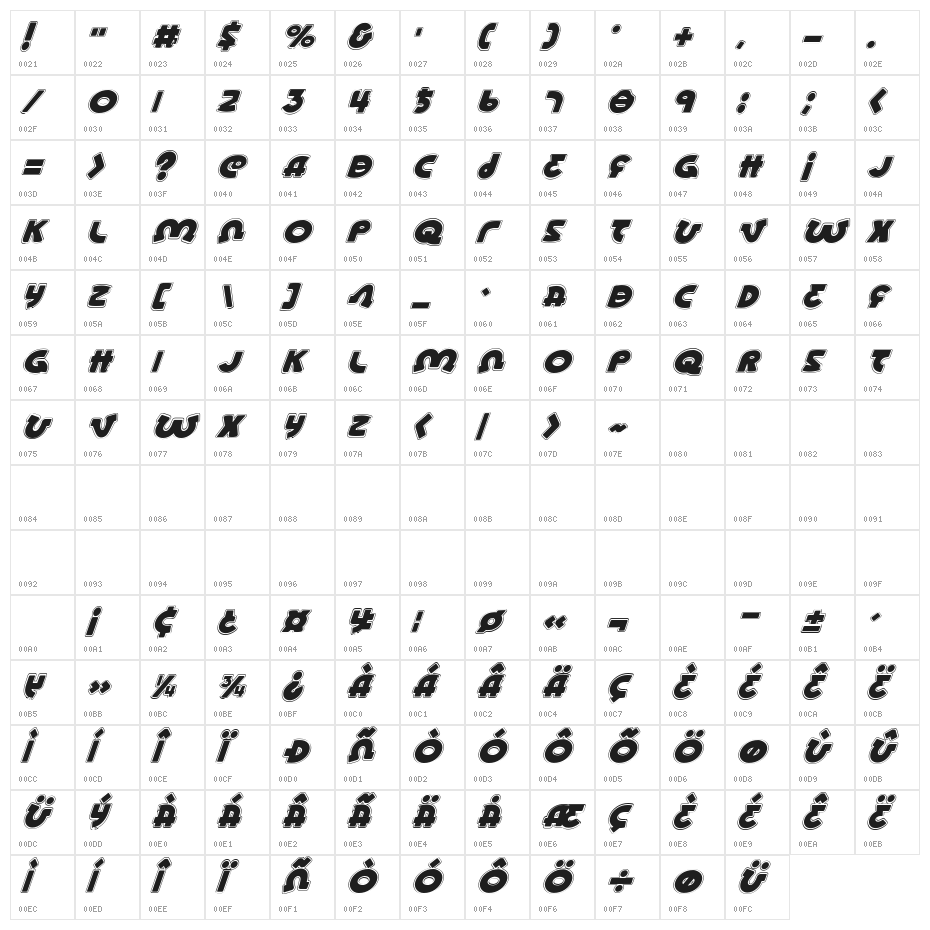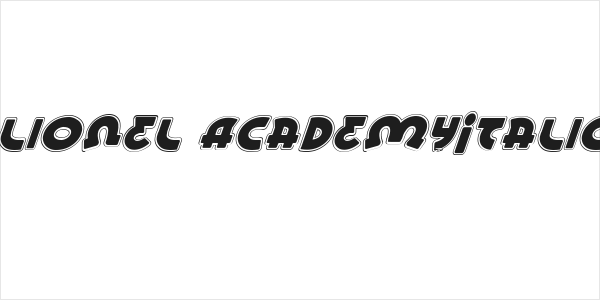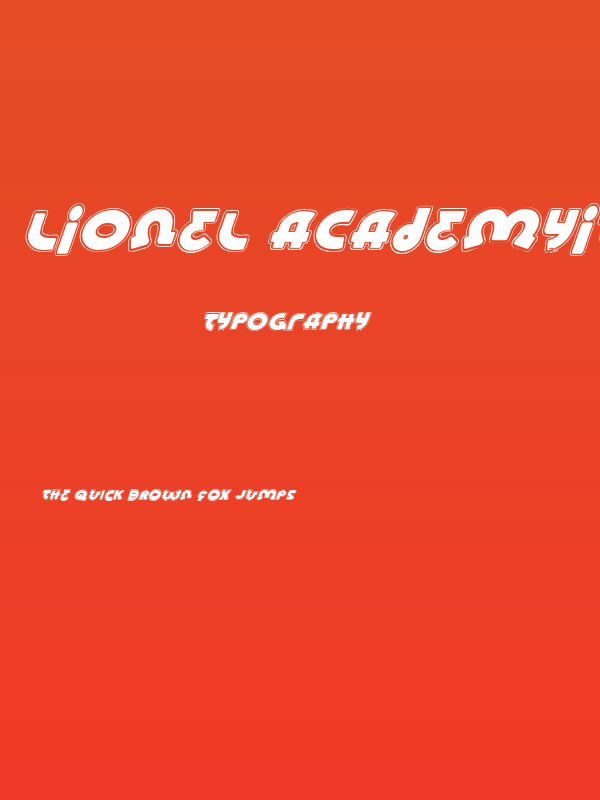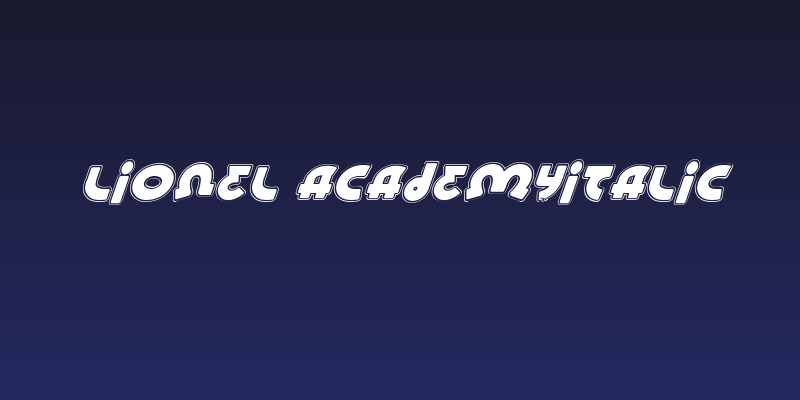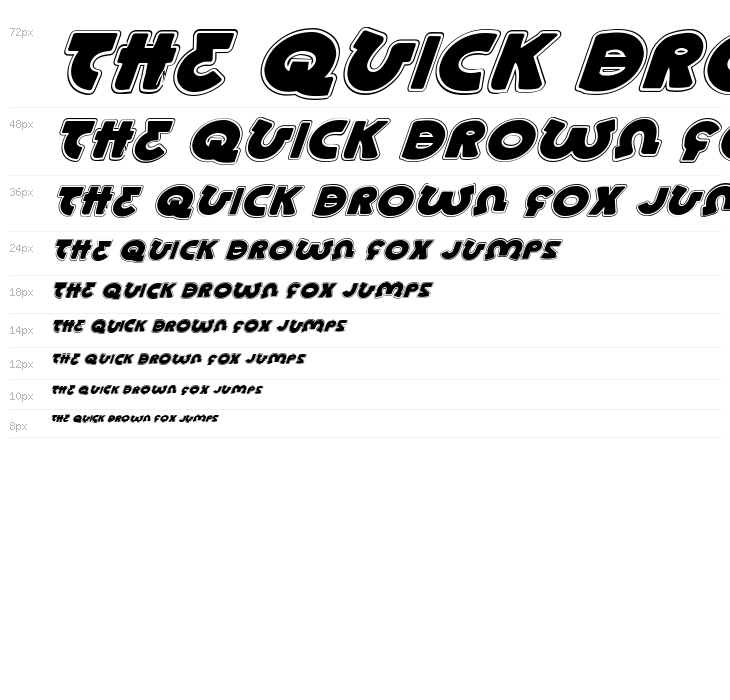
Lionel AcademyItalic Font
Lionel AcademyItalic Description
This font features a bold, playful style with a distinct italic slant, giving it a dynamic and energetic appearance. The characters are outlined, adding a layer of depth and making them stand out. The uppercase and lowercase letters maintain a consistent style, with rounded edges and a slightly condensed form. The numbers and special characters follow the same design principles, ensuring uniformity across all glyphs. This font's unique style makes it suitable for eye-catching designs.
| Proposed Projects | Ideal for posters, logos, branding materials, and any project requiring a bold, attention-grabbing typeface. |